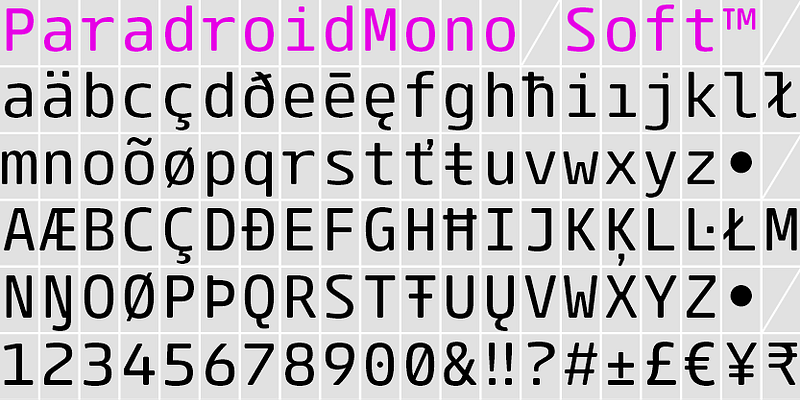
Paradroid Mono Soft Font Free Download is a modern monospaced typeface designed with a clean and approachable look. Featuring rounded edges and a soft, friendly aesthetic, this font is ideal for tech-related projects, coding environments, user interfaces, and creative projects where a sleek, soft appearance is desired without sacrificing legibility.
Paradroid Mono Soft Font Free Download offers uniform character spacing and clear letterforms, making it highly legible in programming environments, as well as in print and digital designs that require a clean and contemporary feel. Its rounded corners add a more friendly and accessible vibe compared to traditional monospaced fonts.
Whether you're designing for websites, software interfaces, or modern branding projects, Paradroid Mono Soft ensures clarity and style, while also adding a touch of warmth.